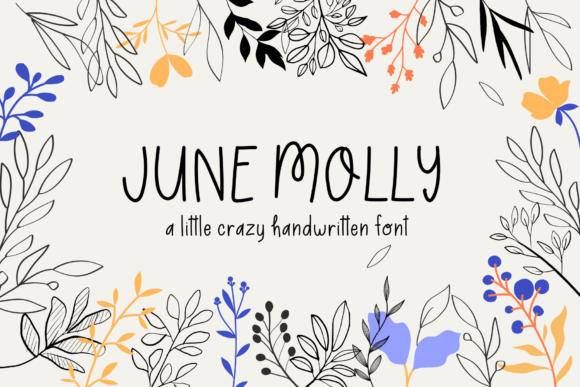
Journey into the realm of exquisite penmanship with June Molly Font, an elegant script typeface that will captivate your senses and transform your creative visions into stunning realities. Designed by the renowned Cotton White Studio, this font family embodies the essence of simplicity, inviting you to explore a world where artistry and functionality intertwine.
Step into the world of June Molly Font, where every curve, stroke, and flourish is crafted to ignite your imagination. This meticulously designed script font exudes an air of grace and sophistication, making it the perfect choice for a wide range of creative endeavors. Dive into the endless possibilities and let your creativity soar.
Embrace the versatility of June Molly Font, a true chameleon in the world of typography. Its adaptability shines through whether you're crafting digital notes, designing captivating planners, creating logos that leave a lasting impression, or embarking on web design projects that demand a touch of elegance. Unleash your creativity and watch as your designs come to life with a distinctive handwritten charm.
Envision your words taking shape in the form of June Molly Font, adorning notebooks and journals with an intimate and personal touch. Elevate your labels, blogs, and quotes with a unique handwritten aesthetic that captivates and engages your audience. Bring greeting cards to life with heartfelt messages penned in this expressive script, making every sentiment truly unforgettable.
Explore the endless creative possibilities with June Molly Font. Picture tea towels adorned with whimsical phrases, apparel that speaks volumes, and pillows that invite you to sink into comfort. Mugs, toys, and posters come alive with the playful spirit of this font, while baby clothing and picture books take on a touch of innocence and charm. The applications are boundless, inviting you to transform ordinary objects into extraordinary expressions of art.